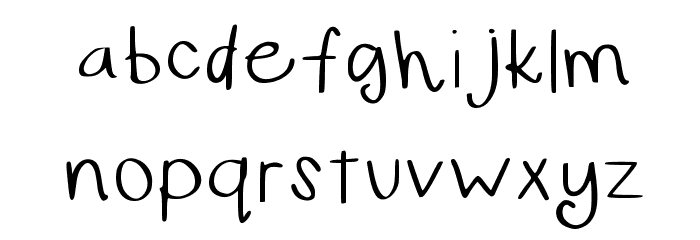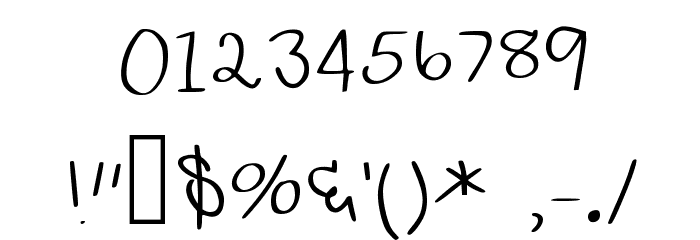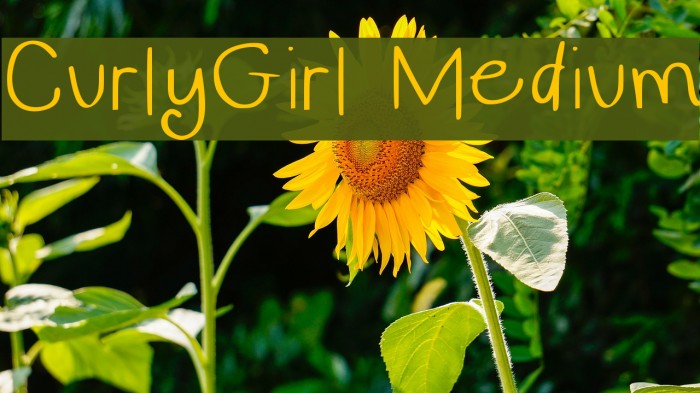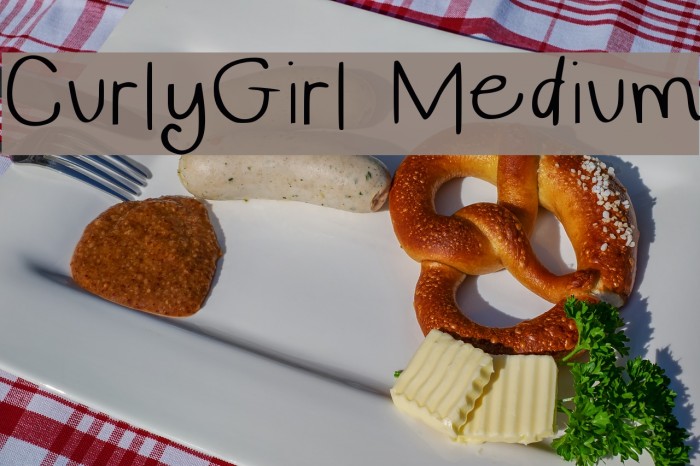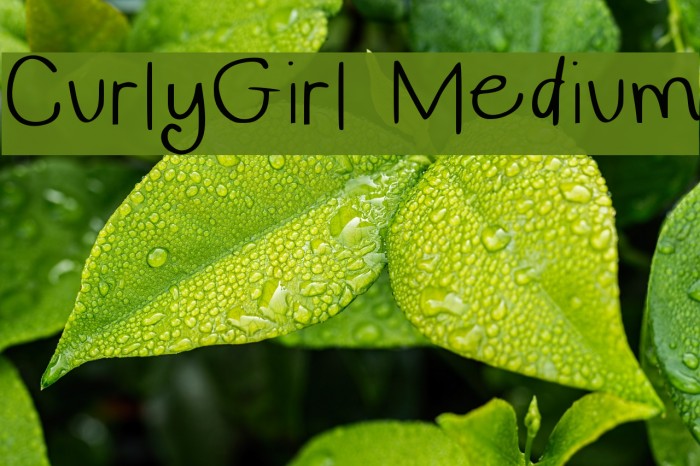
CurlyGirl Medium Font
This font features a playful and whimsical style with a handwritten appearance. The characters are slightly irregular, giving it a casual and friendly feel. The strokes are smooth and rounded, with a consistent medium weight throughout. The uppercase letters are tall and slightly narrow, while the lowercase letters have a more relaxed and open form. Numbers and special characters maintain the same playful aesthetic, making it versatile for various informal applications. The overall design is approachable and charming, suitable for projects that require a personal touch.
A playful, handwritten-style font with smooth, rounded strokes.
- Proposed Projects: Ideal for greeting cards, children's books, casual invitations, and playful branding.
- Overall Style: Casual
- Use Case: Headlines, Informal text, Branding